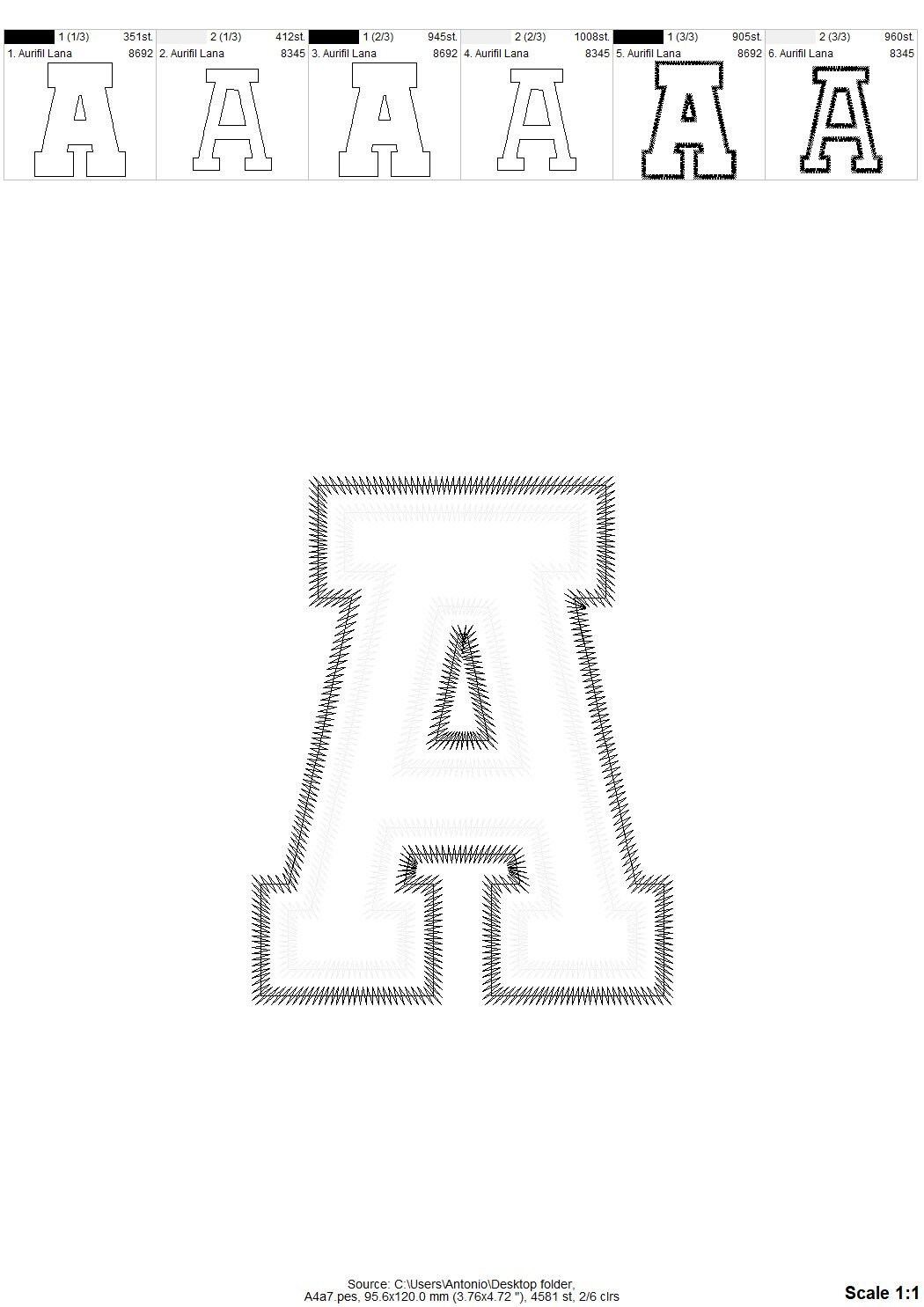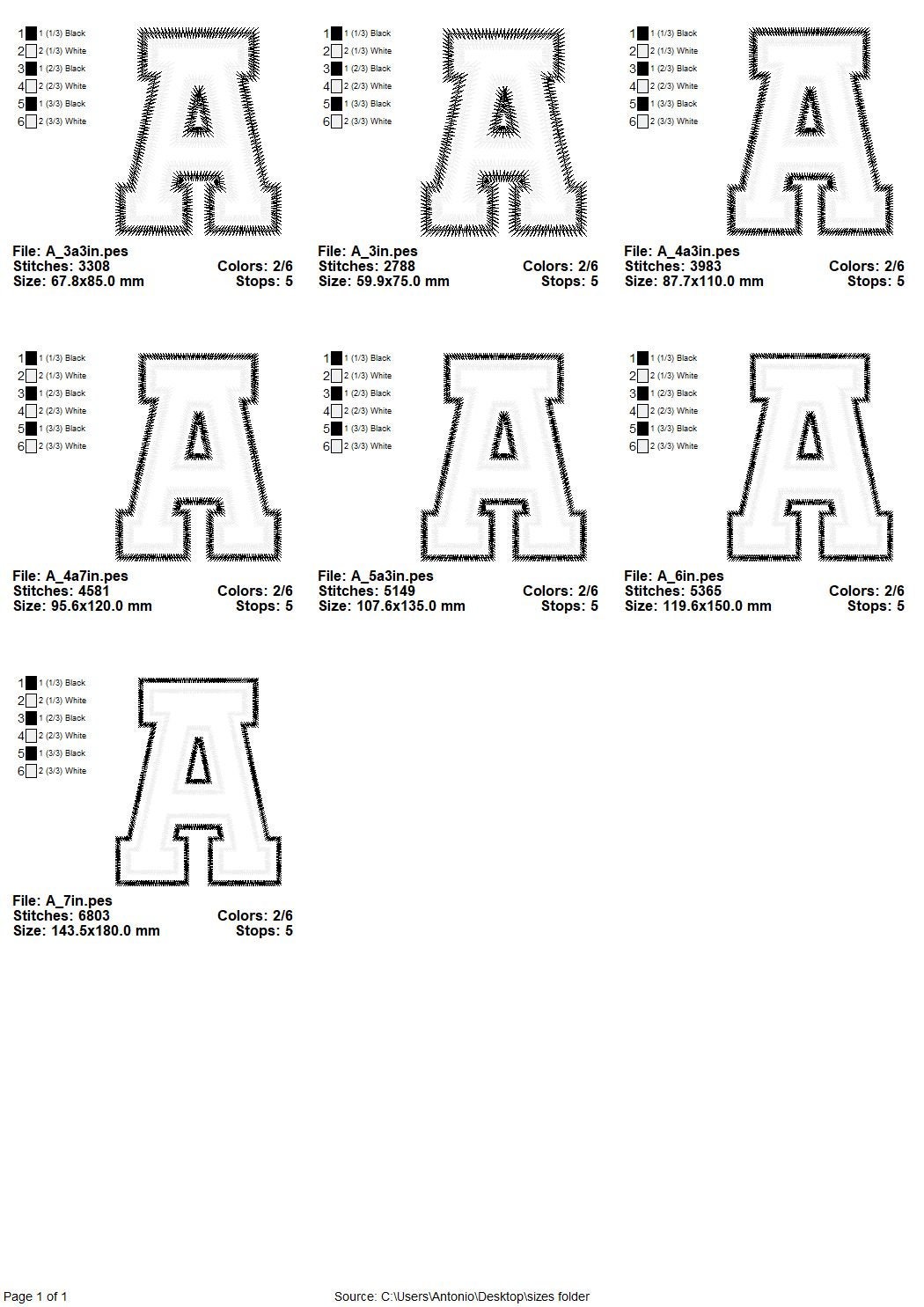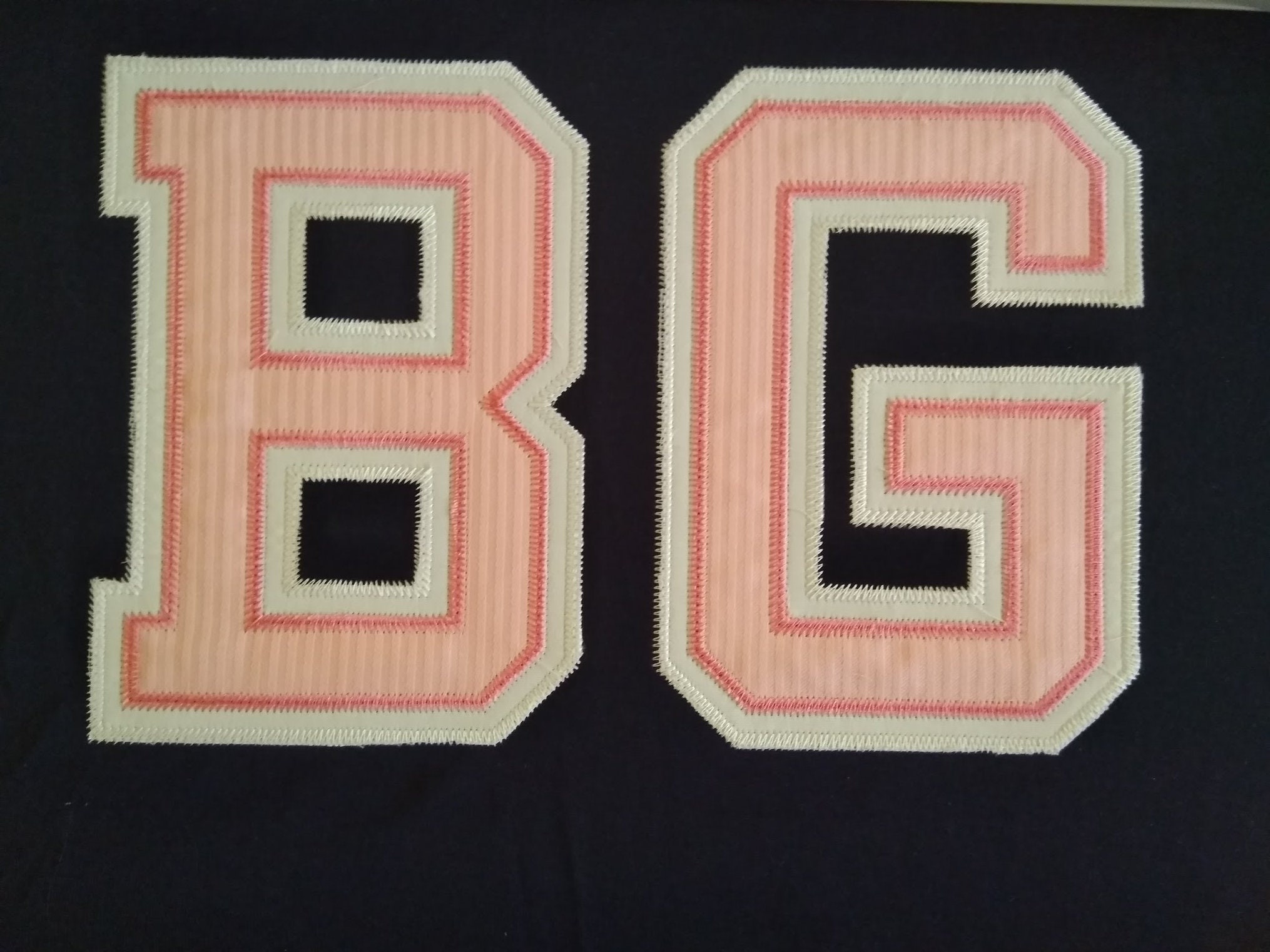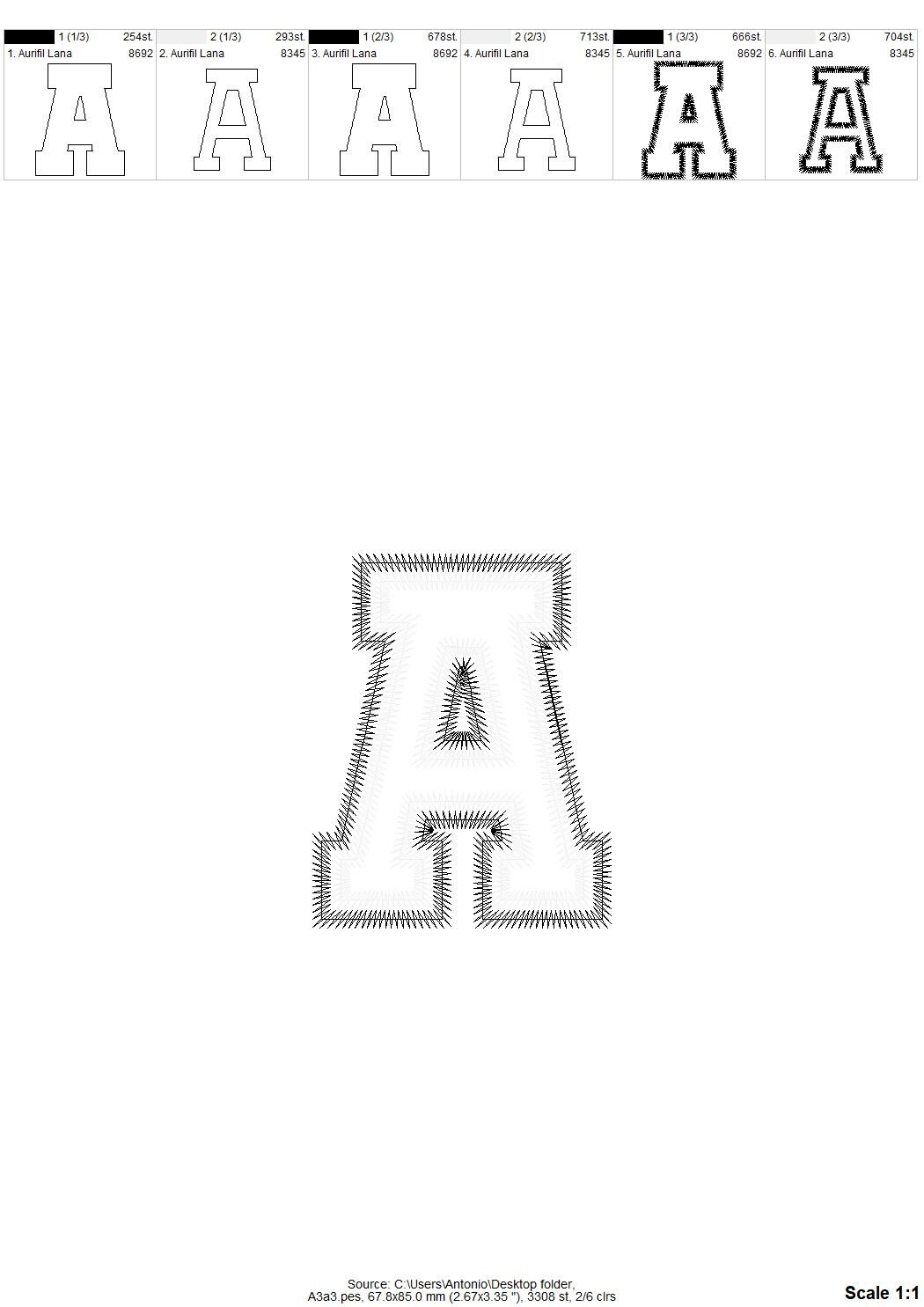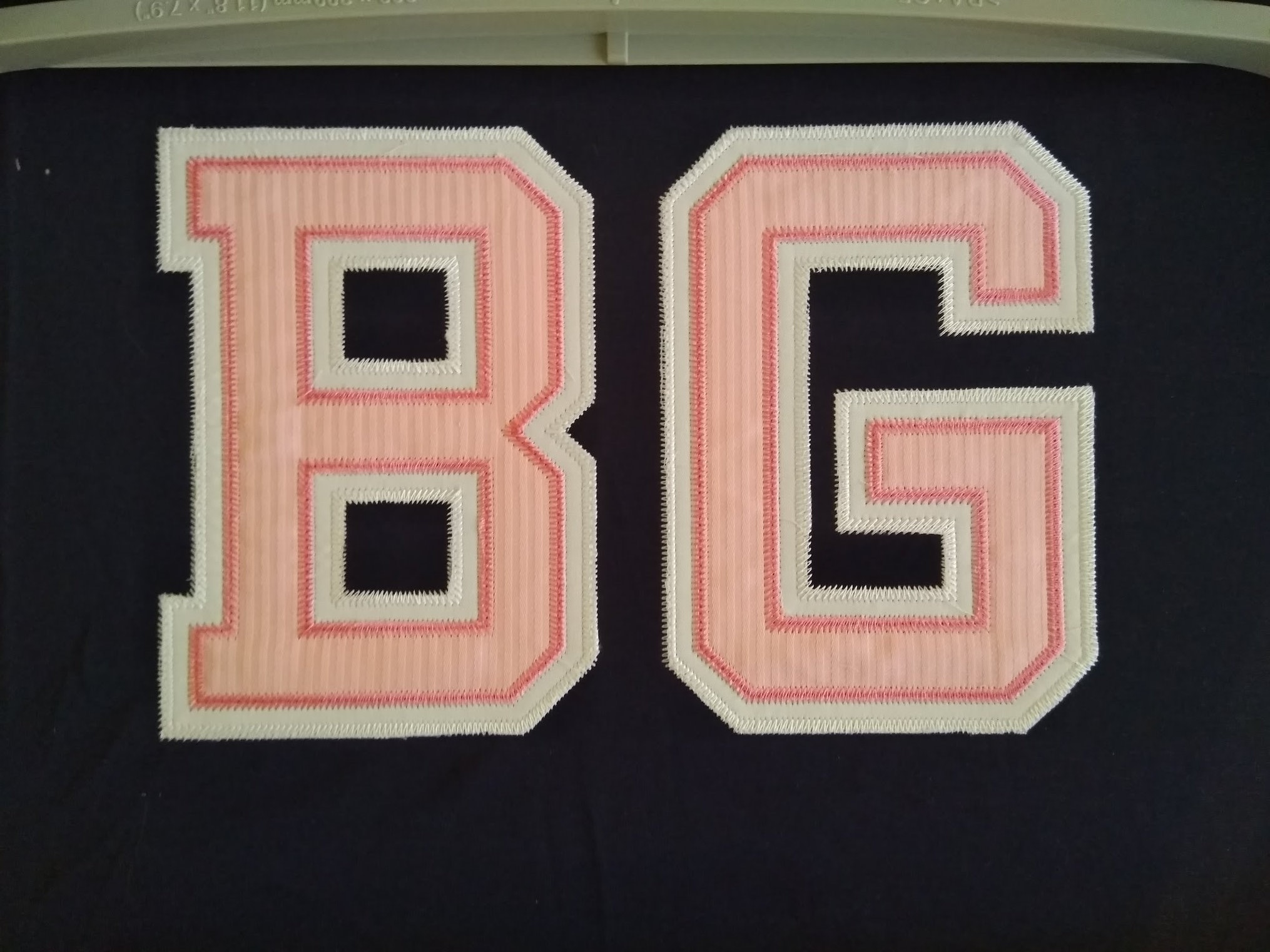
Large two layers applique font alphabet zig zag applique Athletic Sport High School Team Players collegiate font machine embroidery designs
Whole alphabet A-Z, and numbers 0-9.
The font has zig-zag outline stitch.
Two applique layers (double outline sport font)